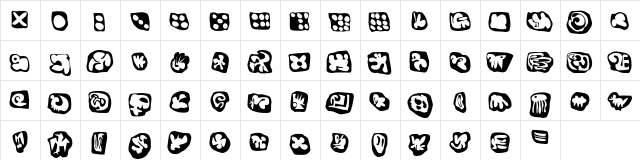
Egg Cameo
Design Context for Egg Typeface
Egg is a composed and adaptable typeface that performs quietly and consistently across a wide range of design contexts.